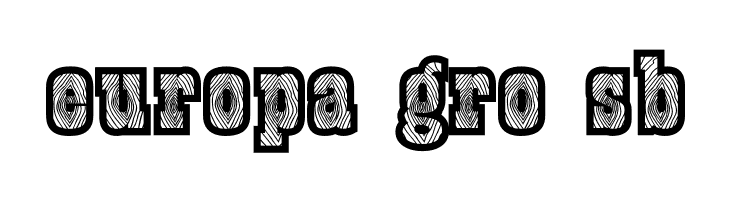
Holitter Lines Font
- Font: Holitter Lines
( Fonts by Daniel Gauthier )
A bold, decorative font with intricate line patterns and a strong, blocky structure.